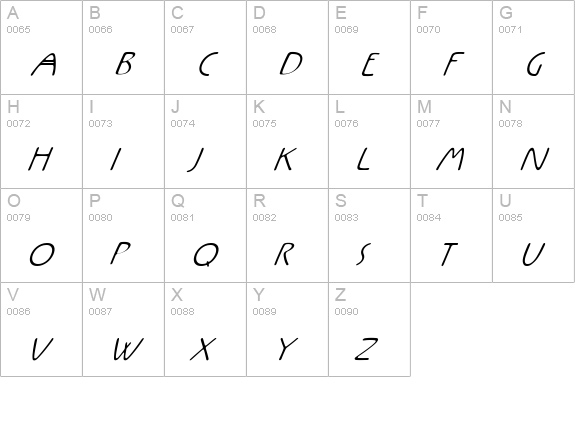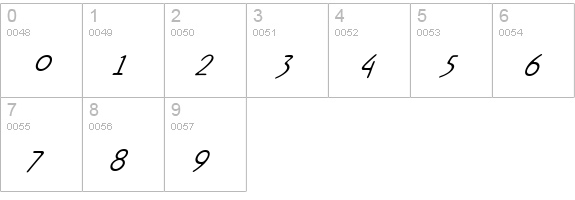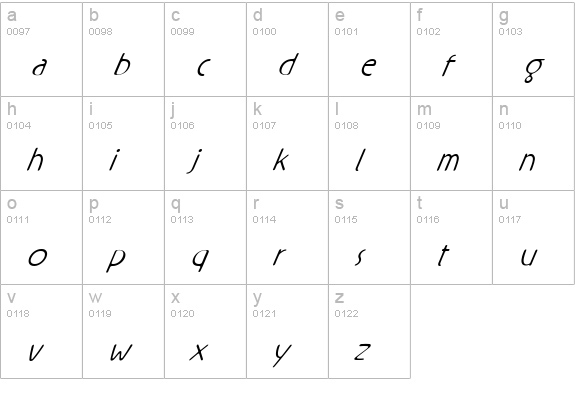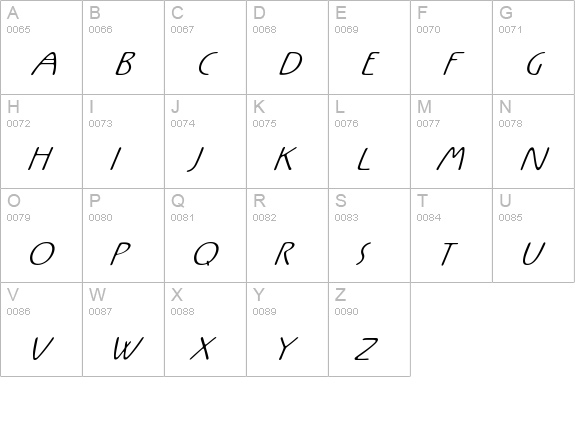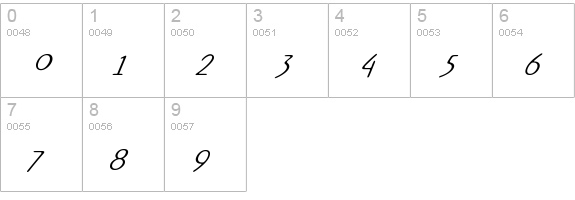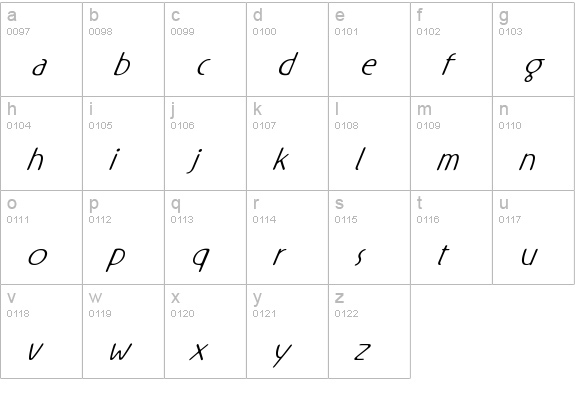
Rx-FiveOne Font Details
Rx-FiveOne is a sleek and modern font that exudes elegance and sophistication. Its clean lines and sharp angles give it a futuristic edge, making it perfect for a wide range of design projects. From branding to editorial design, Rx-FiveOne adds a touch of contemporary style to any layout. The best part? Rx-FiveOne is completely free to download at FontsMarket.com. This means you can easily access this stunning font and use it in your projects without any cost involved. Whether you're a professional designer or a hobbyist, Rx-FiveOne is a versatile and stylish font that will elevate your designs to the next level. Download it today and add a touch of modern flair to your creations.